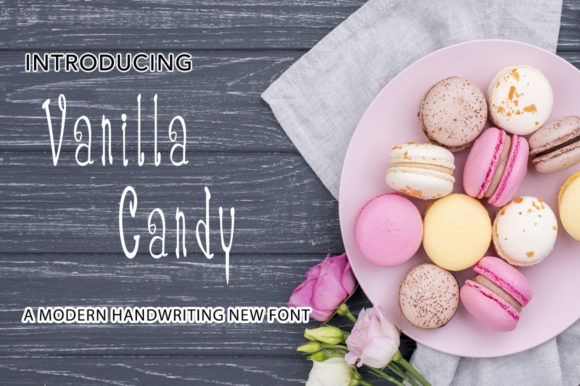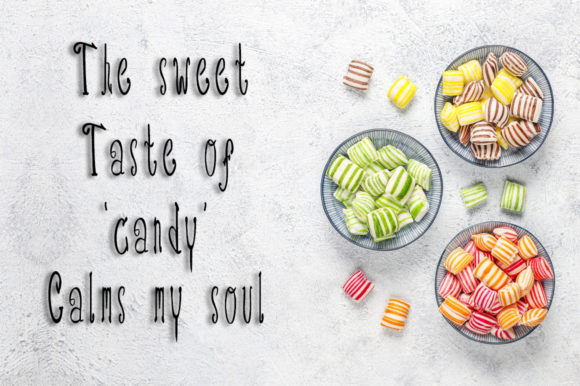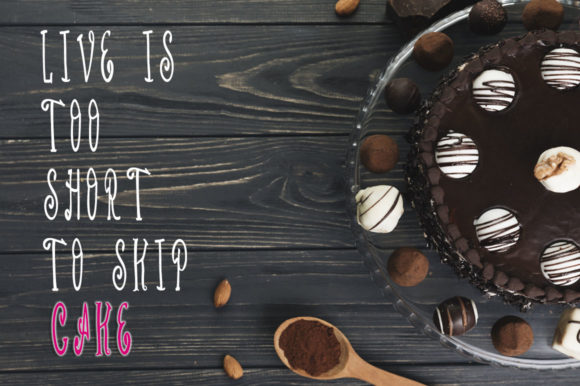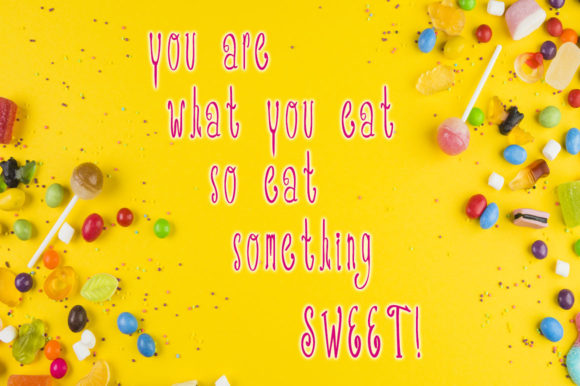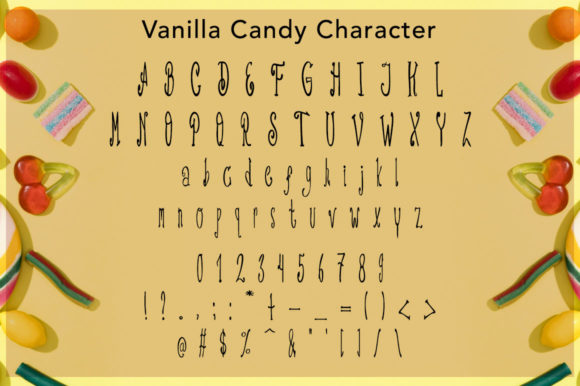
Vanilla Candy Font
About Vanilla Candy Font
Vanilla Candy is a cute and delicate handwritten font. Get inspired by its incredibly dainty style and use it to create lovely designs!